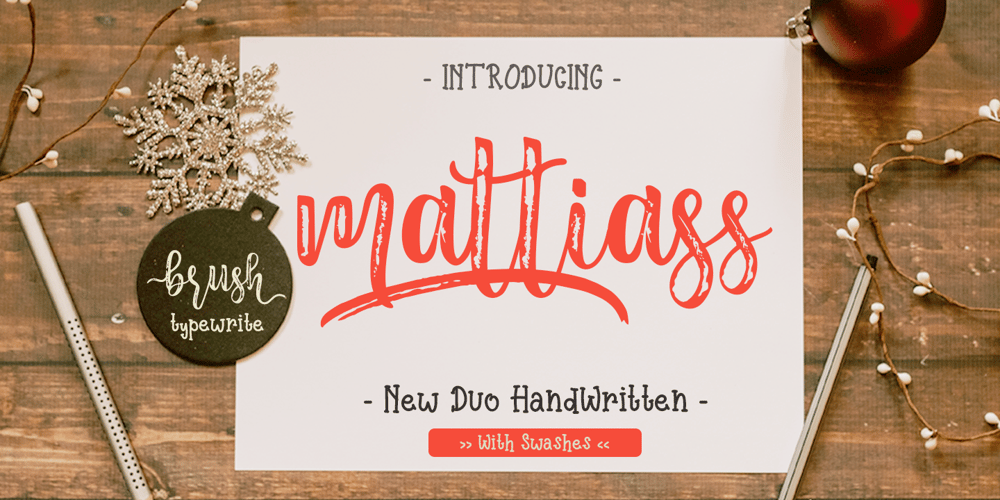
Mattiass
Mattiass font
Mattiass Font Family was designed by Sarwo Edhi Prayitno and published by Haksen. Mattiass contains 3 styles and family package options. “Mattiass” is a hand lettered font style that perfect for greeting cards, branding, stationery design, social media,packaging, magazine layouts, prints, logos and more! This unique font features complete lowercase alphabets and uppercase alphabets along with a few other ligatures and stylistic alternates to create a truly handwritten look and feel. Each of “Mattiass” has a variety of unique, the script with brush and rough textured and Serif with handwritten textured included coded features to create compelling, handmade outcomes. Multilingual support is included for Western European languages.and OTF is included for the full, “Mattias” font.